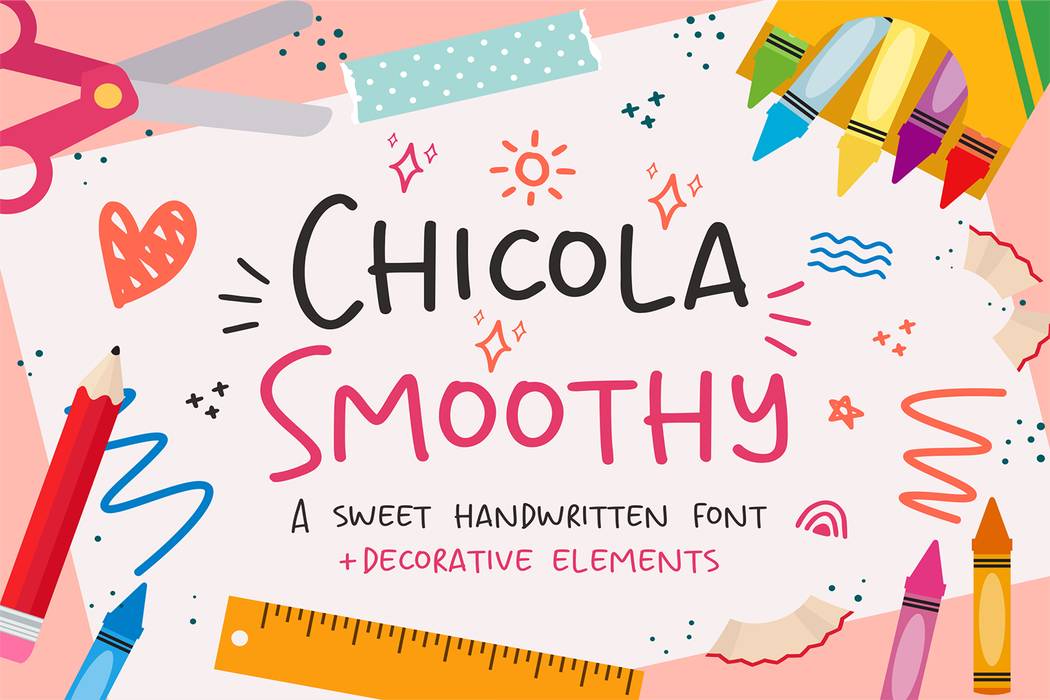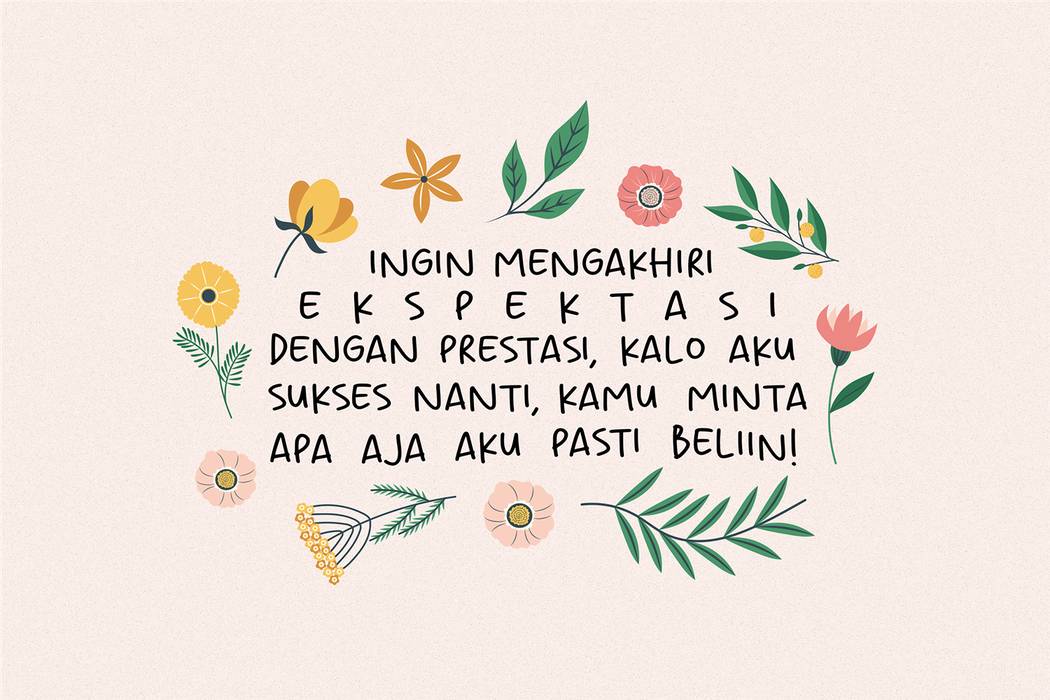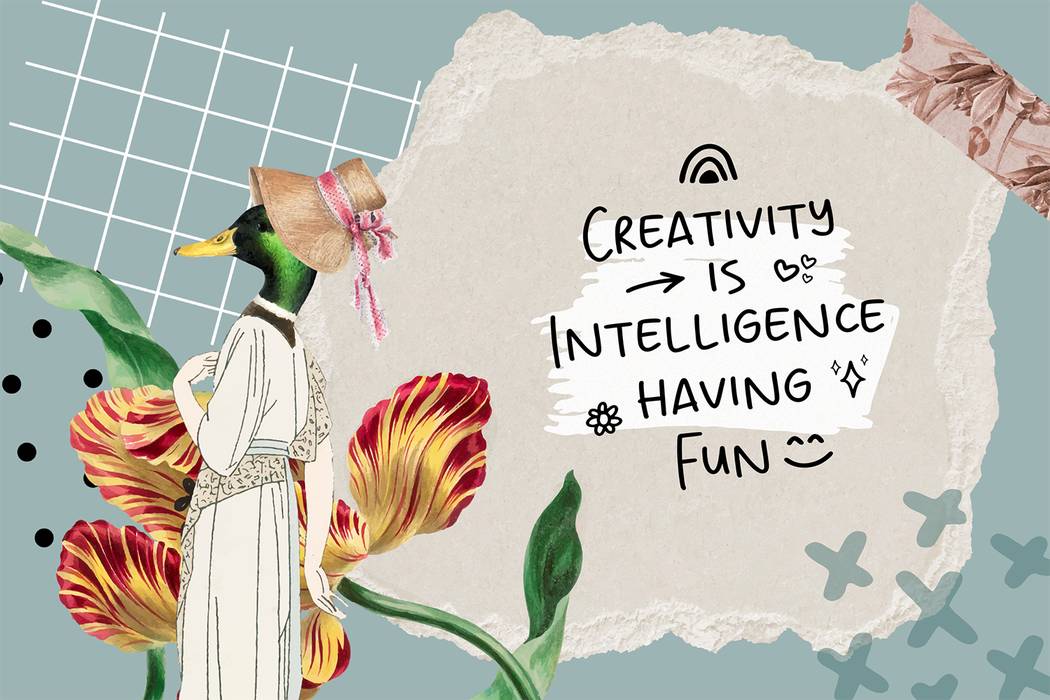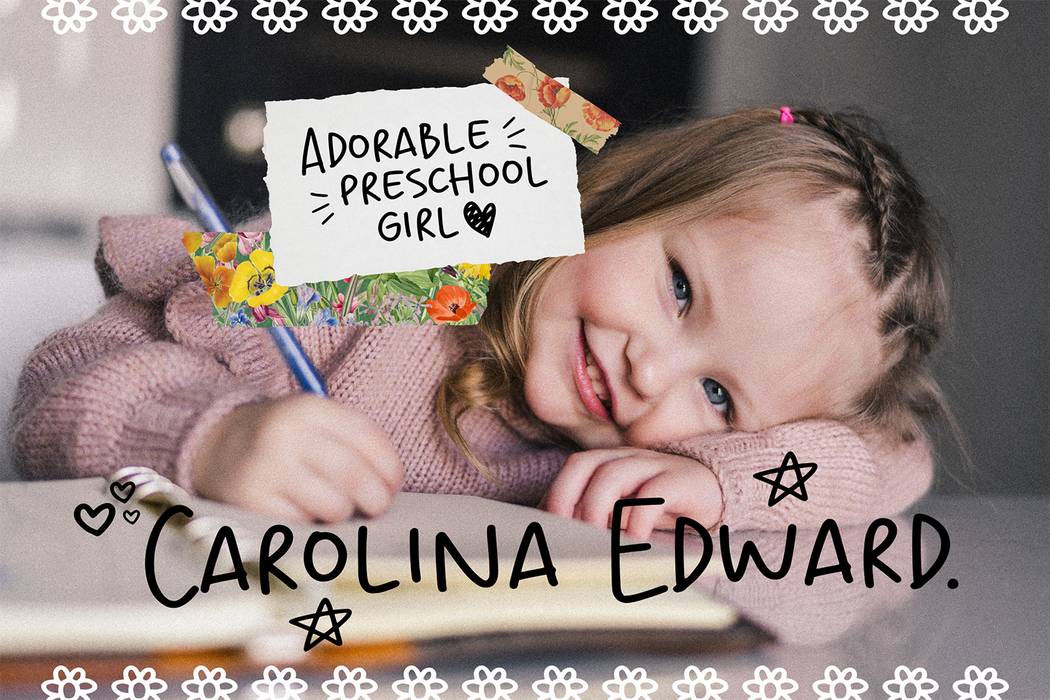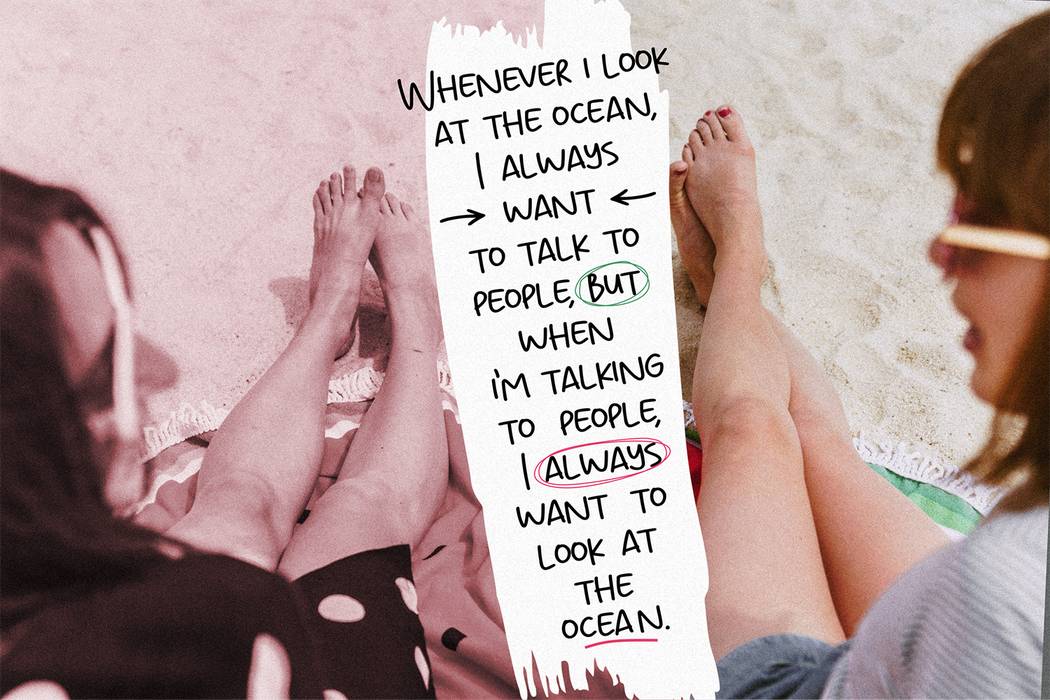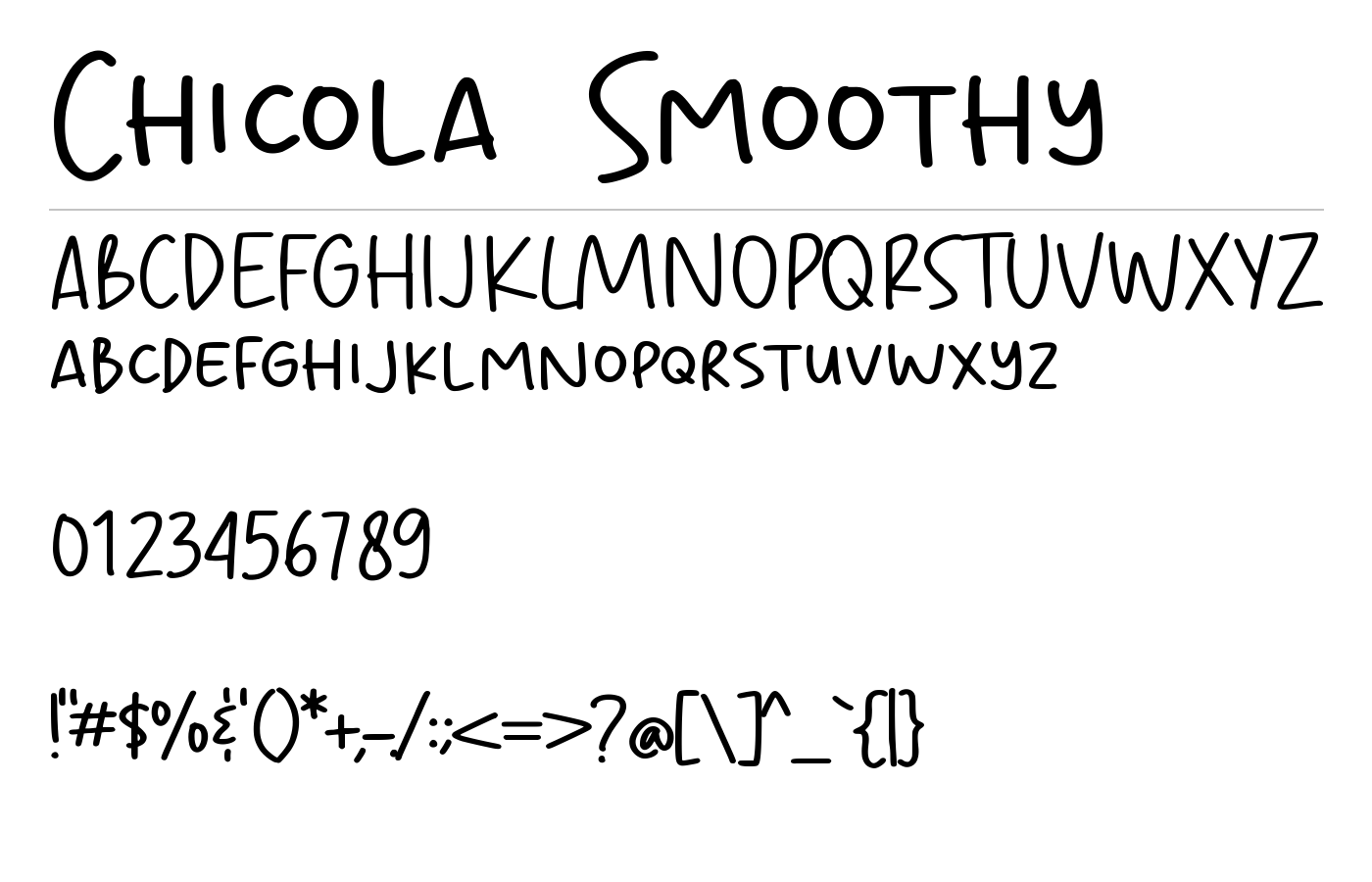
Chicola Smoothy is a playful and casual handwritten sans serif font characterized by its tall, narrow letters with smooth, rounded strokes that create a friendly and approachable feel. Its light weight and consistent stroke width give it an airy and informal appearance, making it ideal for creative projects, children's materials, and casual branding. This font works well in headlines, logos, and packaging where a personable and relaxed mood is desired.
Chicola Smoothy Font
About Chicola Smoothy Font
| Font family | Chicola Smoothy Font |